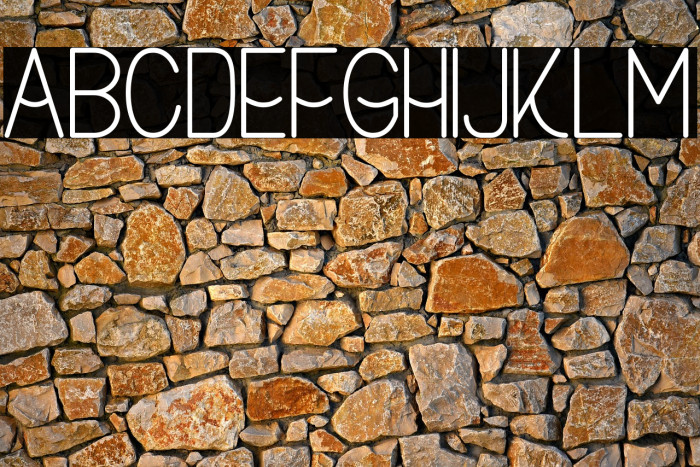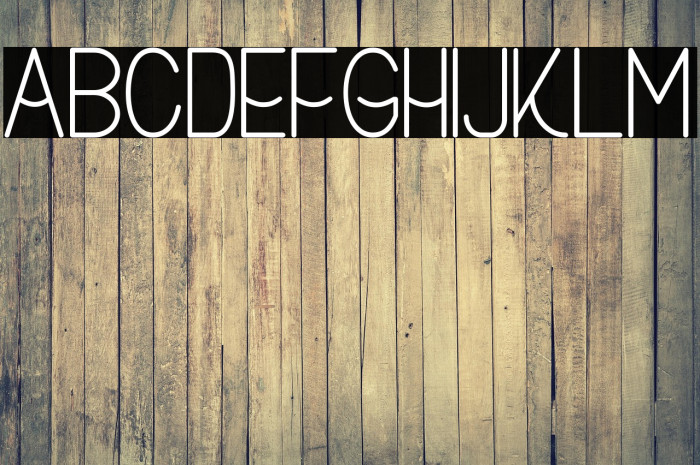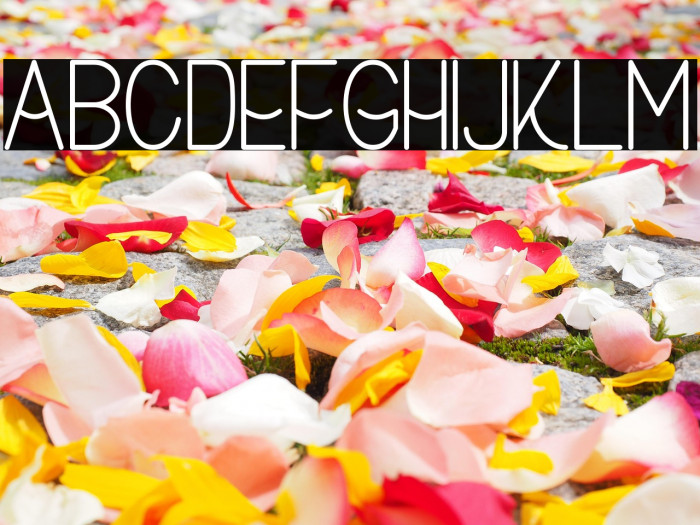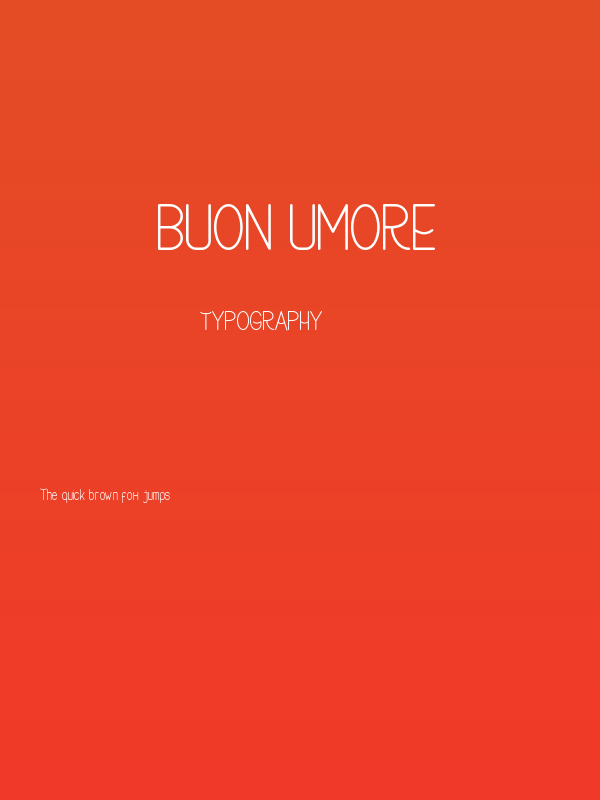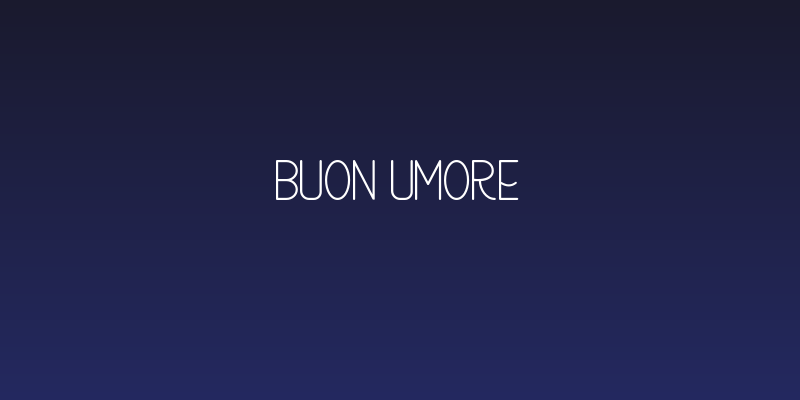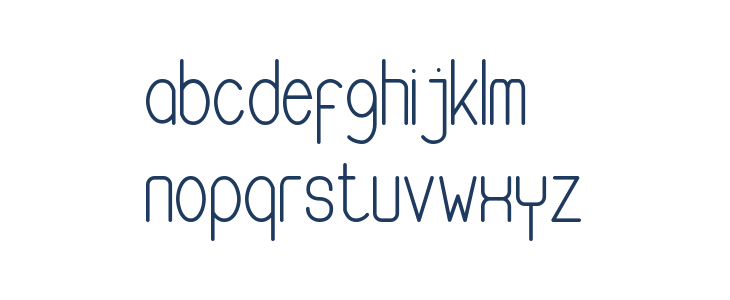
Buon Umore Font
Buon Umore Description
This font features a modern and playful design with rounded edges and a clean, geometric structure. The characters are evenly spaced, providing a harmonious and balanced appearance. The uppercase letters are tall and slightly narrow, while the lowercase letters maintain a consistent height, enhancing readability. The numerals are distinct and align well with the overall style, making them suitable for various applications. Special characters are designed with the same rounded and open feel, ensuring consistency throughout the font. Its simplicity and clarity make it versatile for both digital and print media.